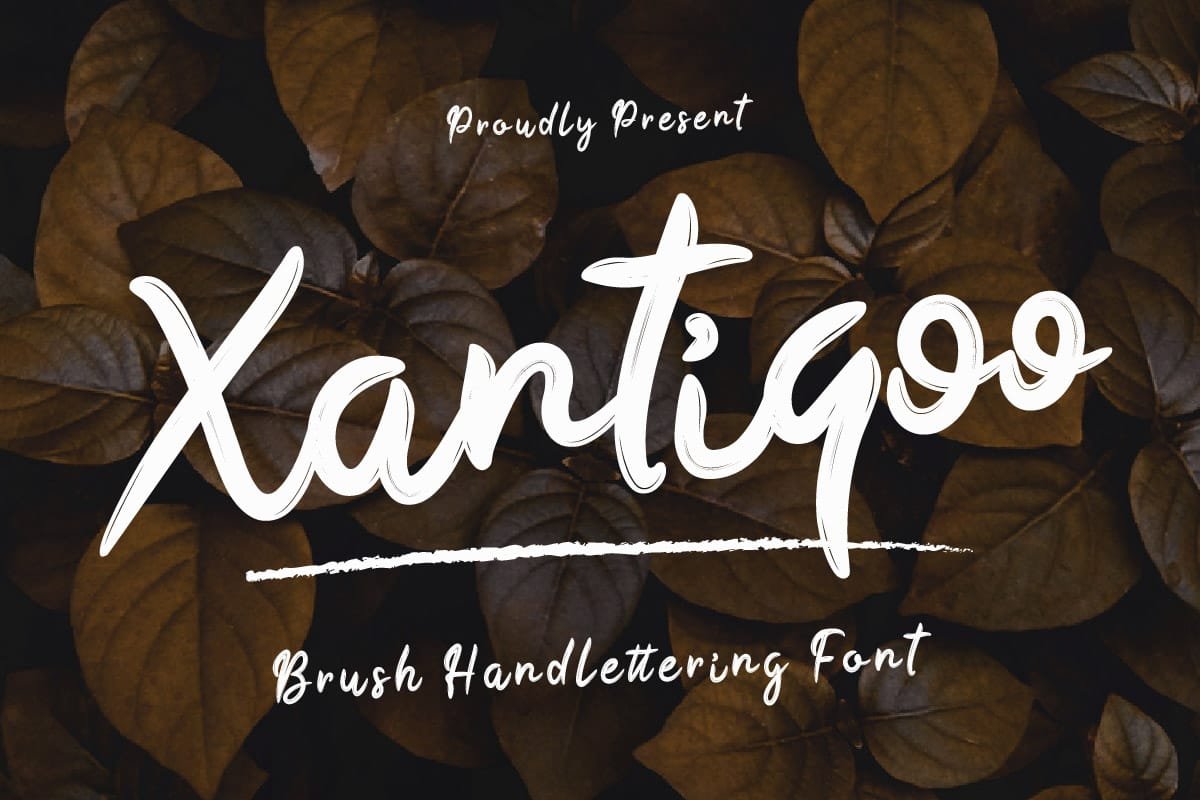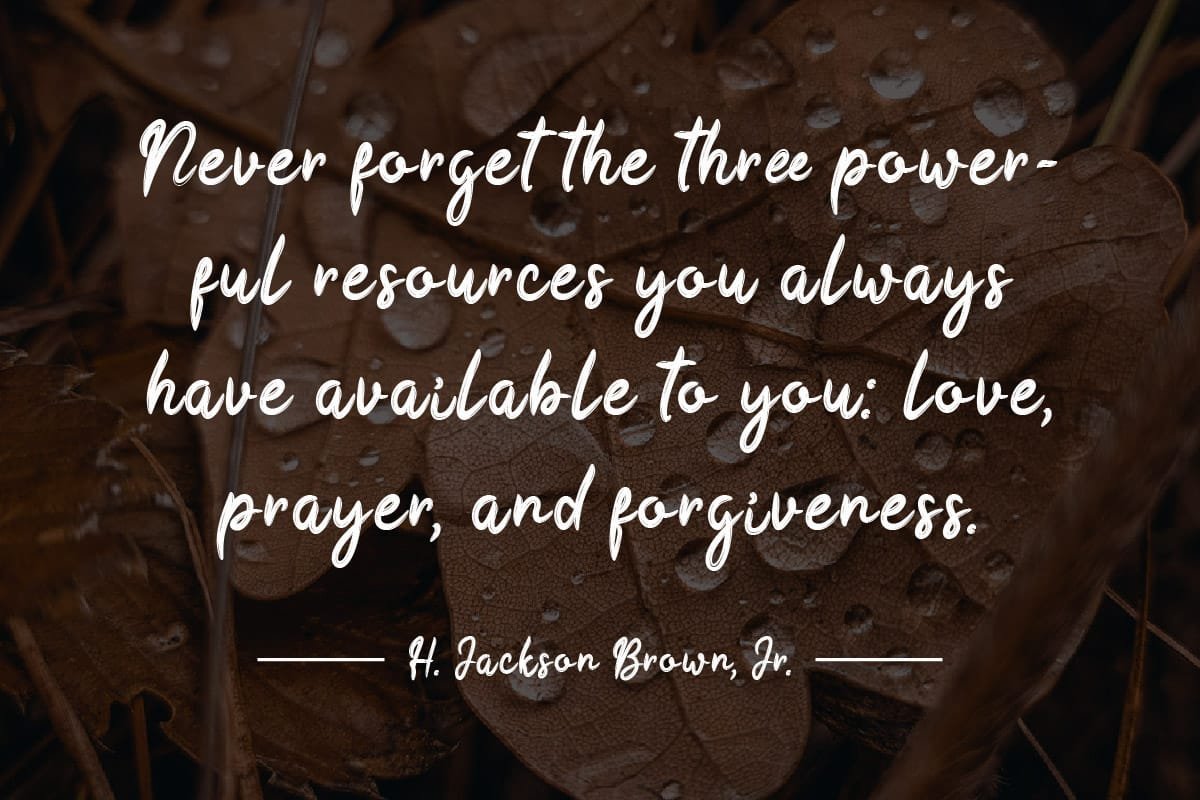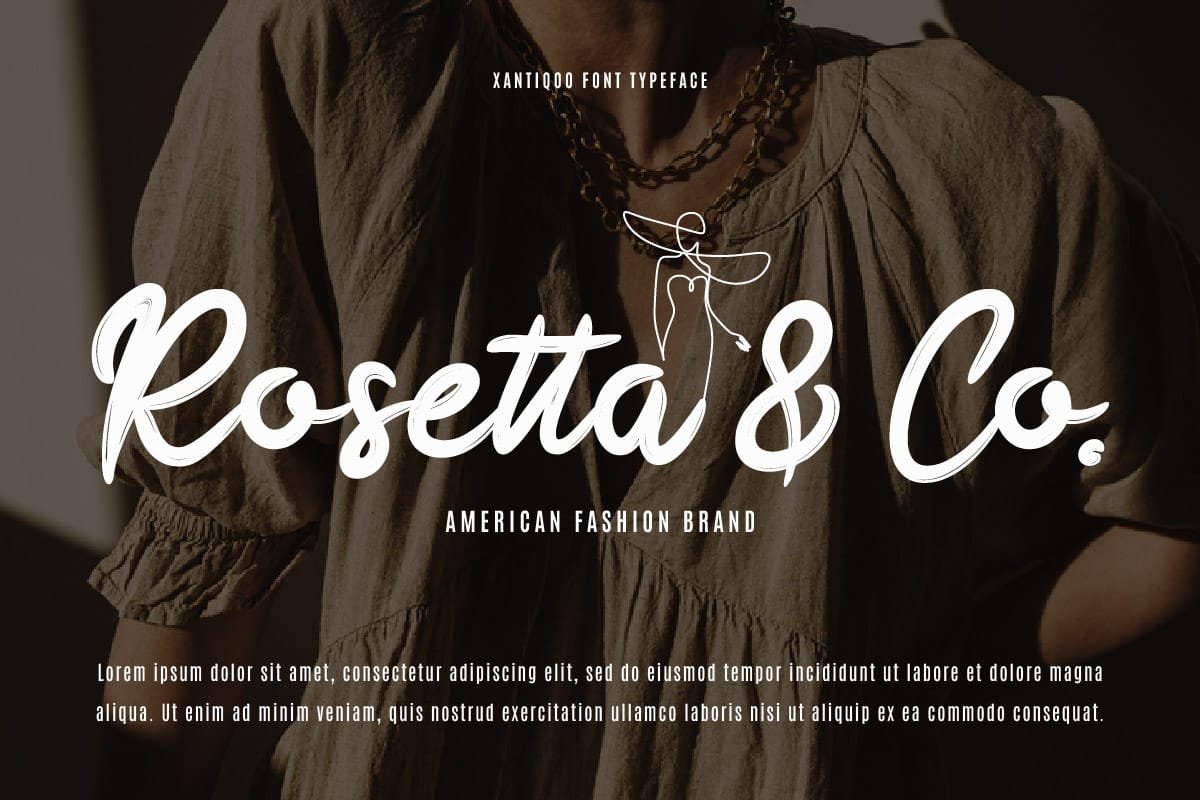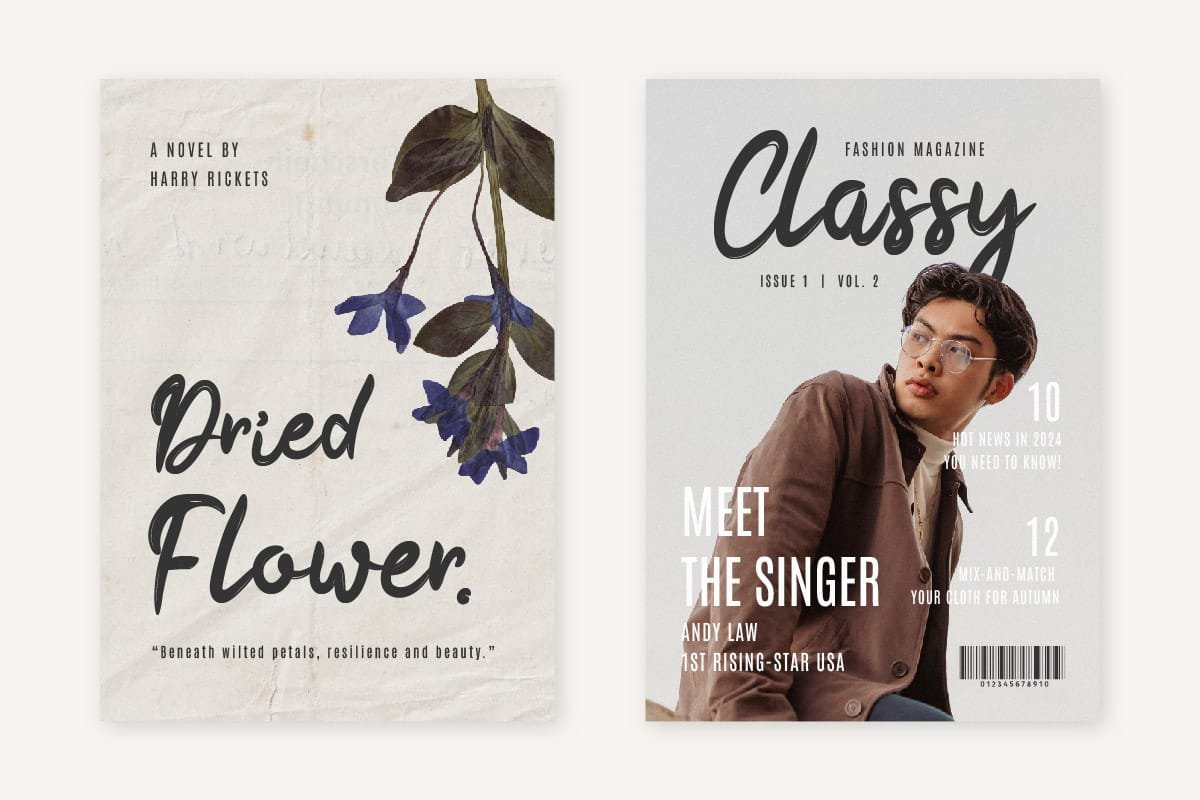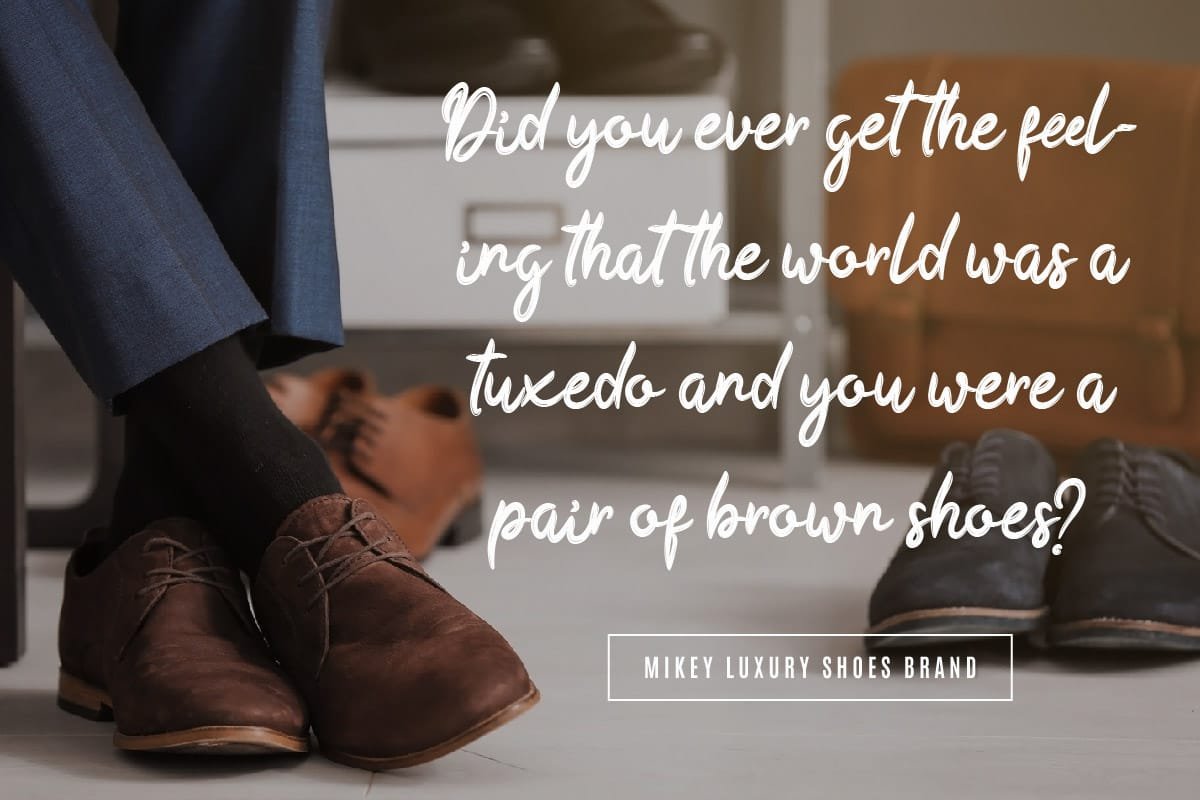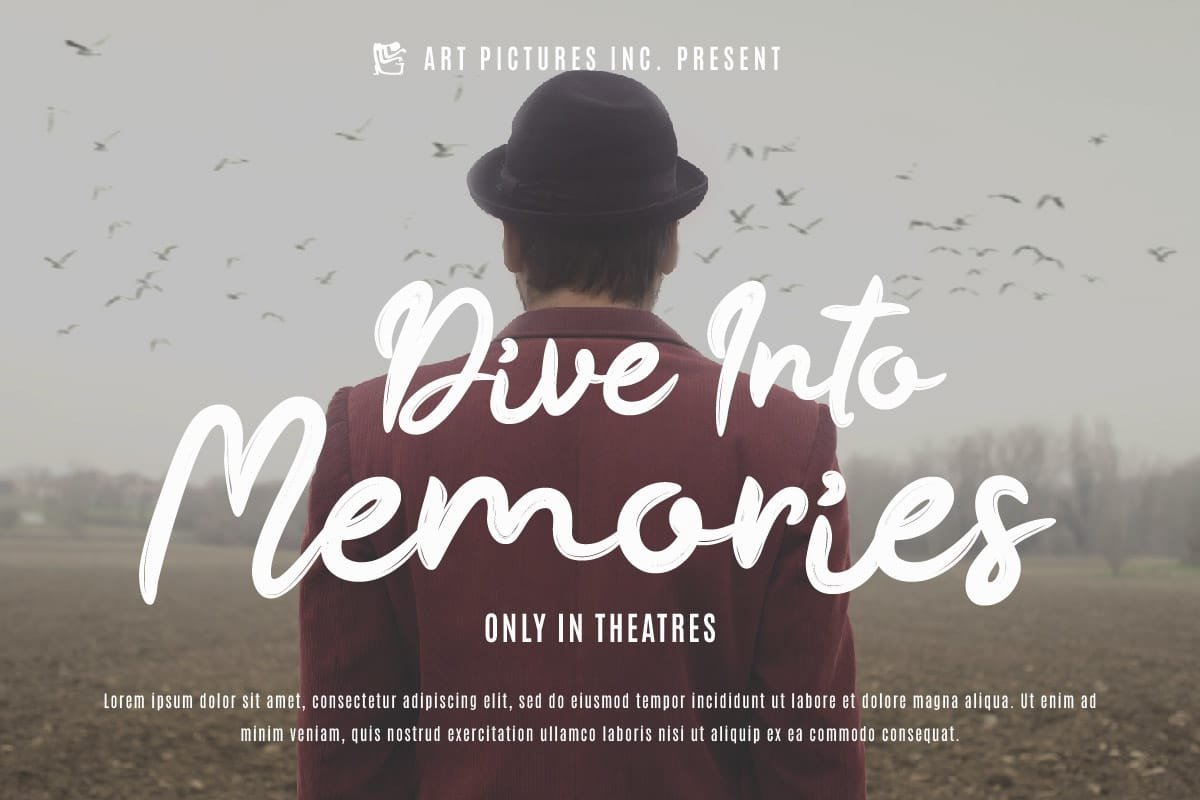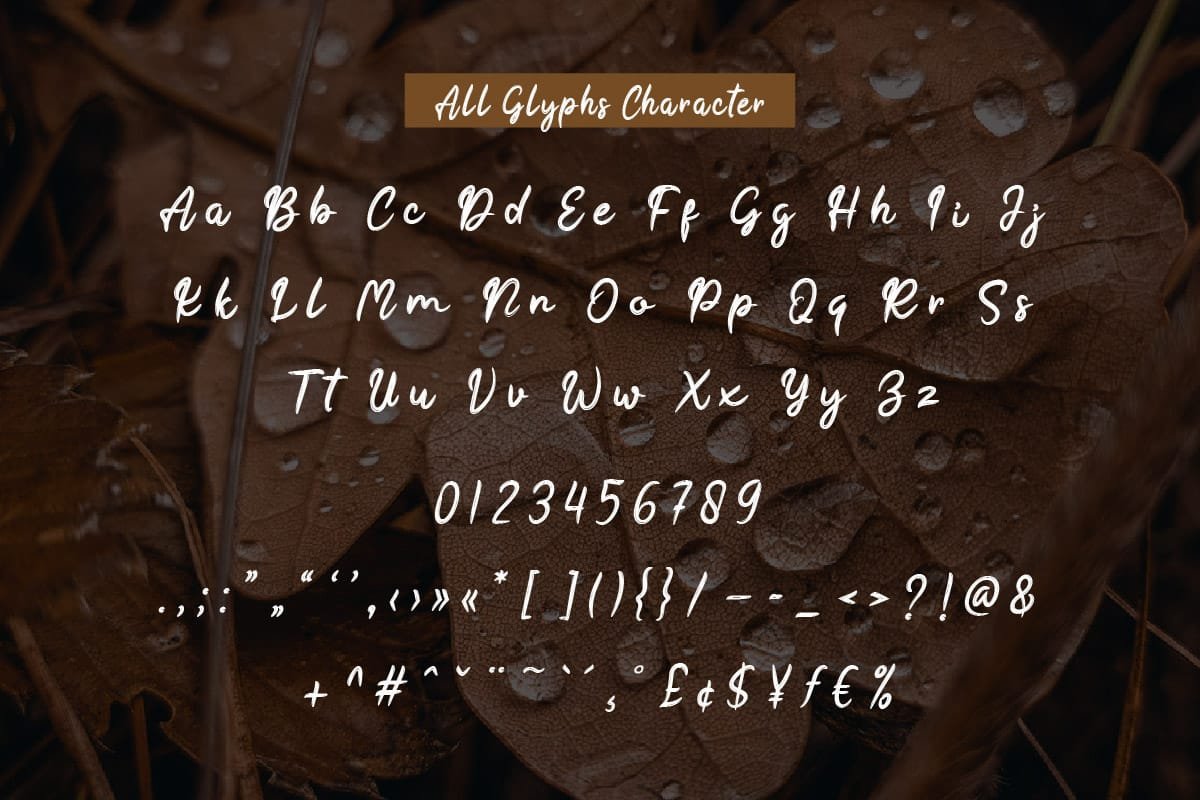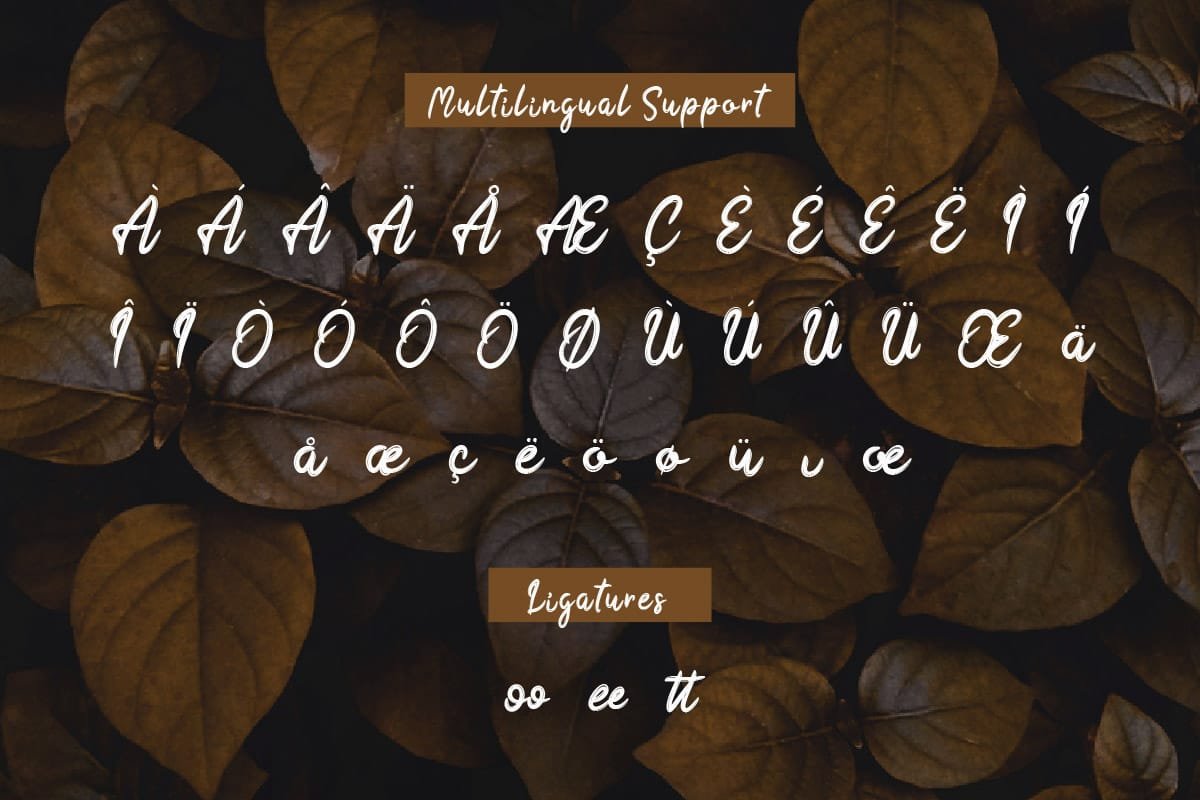
Xantiqoo is a brush handwritten font that brings a touch of exoticism to your designs. Its unique, flowing characters are perfect for designs that require a touch of creativity and individuality. Whether you’re creating a logo for an exotic brand or a headline for a travel blog, Xantiqoo adds a touch of the exotic that is sure to captivate your audience.